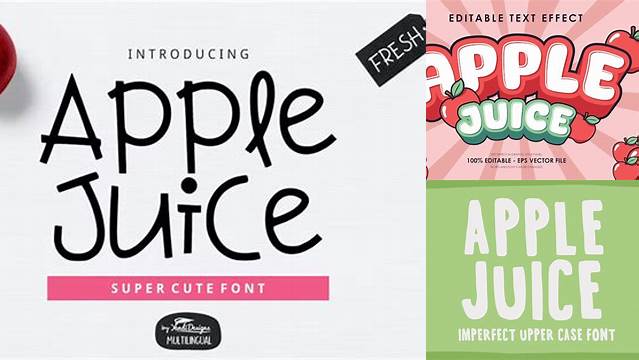
Free Apple Juice Font Download: Sweet Typography
Hey there, font enthusiasts! Are you on the hunt for a typeface that's bursting with personality and oozing charm? Look no further than the Apple Juice font! This playful font is like a refreshing glass of apple juice on a sunny day – it's vibrant, cheerful, and sure to add a touch of whimsy to any project. In this article, we'll dive into the world of the Apple Juice font, exploring its unique characteristics, its versatility in design, and where you can snag it for free. So, grab your metaphorical glass and let's get started!
What Makes Apple Juice Font So Appealing?
The Apple Juice font isn't just another run-of-the-mill typeface; it's a font with character. Its hand-drawn aesthetic gives it a friendly and approachable vibe, making it perfect for projects that need a touch of warmth and authenticity. Imagine this font splashed across a children's book cover, a playful logo, or a quirky social media graphic – it instantly adds a dose of fun and energy. The irregular lines and slightly uneven letterforms contribute to its unique charm, making it stand out from the crowd of perfectly polished, sterile fonts. Think of it as the typographic equivalent of a warm hug or a playful wink – it's guaranteed to bring a smile to your face.
The Hand-Drawn Charm of Apple Juice Font
The magic of the Apple Juice font lies in its hand-drawn style. This gives it a personal, organic feel that's hard to replicate with more formal typefaces. Each letter seems to have been lovingly crafted by hand, adding to its unique appeal. The slightly uneven baselines and varying stroke thicknesses give it a natural, almost whimsical quality. This is a font that doesn't take itself too seriously, which makes it perfect for projects that aim to be lighthearted and fun.
Versatility in Design: Where Can You Use It?
The beauty of the Apple Juice font is its versatility. While it might seem like a niche font at first glance, its playful nature lends itself to a wide range of design applications. From branding to web design, print materials to social media, this font can add a touch of personality to almost any project. Let's explore some specific examples:
- Logos and Branding: If you're looking to create a logo that's memorable and approachable, the Apple Juice font is an excellent choice. Its unique character will help your brand stand out from the competition, conveying a sense of fun and creativity.
- Children's Books and Educational Materials: This font is a natural fit for children's books, posters, and other educational materials. Its playful nature will engage young readers and make learning more enjoyable.
- Greeting Cards and Invitations: Want to add a personal touch to your greeting cards or party invitations? The Apple Juice font will help you create designs that are warm, inviting, and full of personality.
- Social Media Graphics: In the crowded world of social media, it's essential to have visuals that grab attention. The Apple Juice font can help your graphics stand out, conveying a sense of fun and authenticity.
- Web Design: Looking to add some personality to your website? The Apple Juice font can be used for headings, subheadings, and even body text (although readability should always be a priority).
Standing Out from the Crowd: Uniqueness and Memorability
In a world saturated with generic fonts, the Apple Juice font offers a refreshing alternative. Its unique hand-drawn style makes it instantly recognizable and memorable. This is a font that will help your designs stand out from the crowd, leaving a lasting impression on your audience. If you're looking for a typeface that's both playful and professional, the Apple Juice font is definitely worth considering.
Apple Juice Font: Your Secret Weapon for Playful Designs
In conclusion, the Apple Juice font is a fantastic addition to any designer's toolkit. Its hand-drawn charm, versatility, and free availability make it a winner for projects that need a touch of fun and personality. Whether you're designing a logo, a children's book, or a social media graphic, the Apple Juice font will help you create designs that stand out from the crowd. So, go ahead and download your free glass of Apple Juice font – your designs will thank you for it! Remember to always check those licensing terms, guys, and have fun creating!